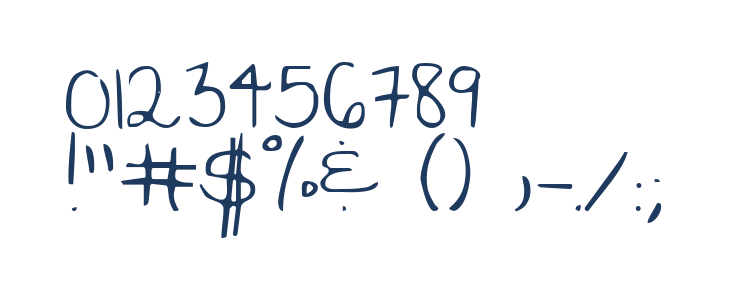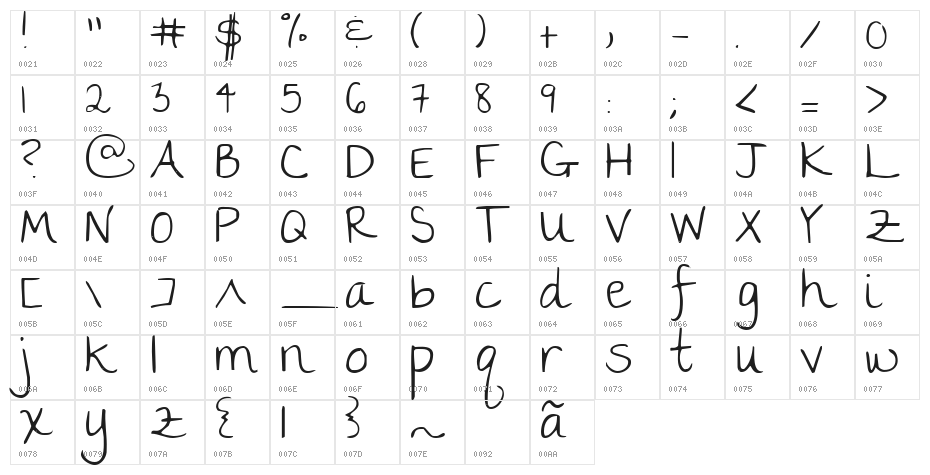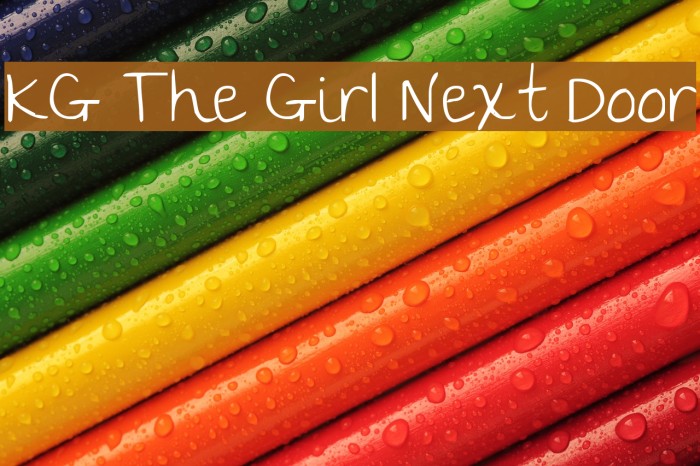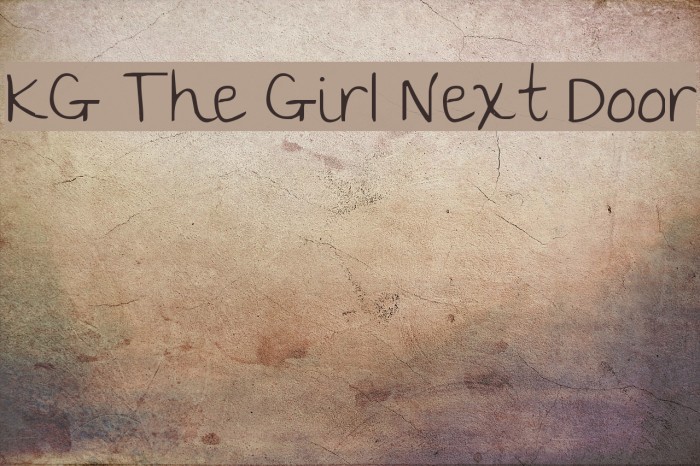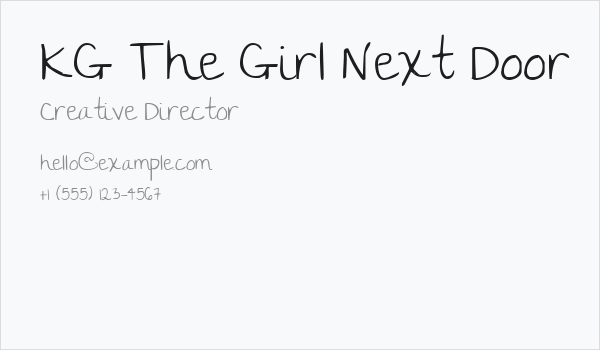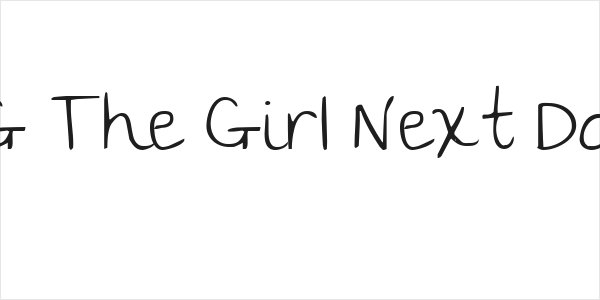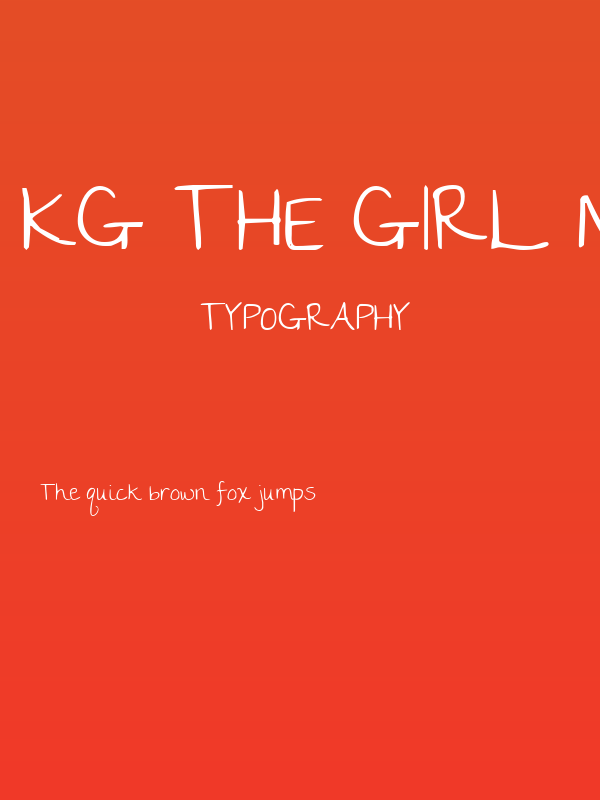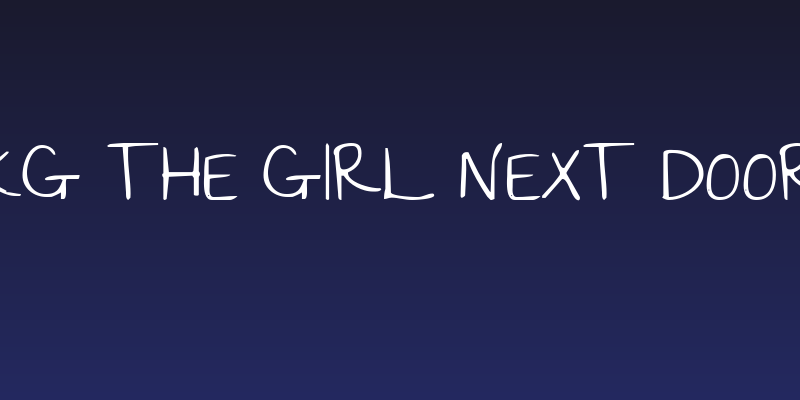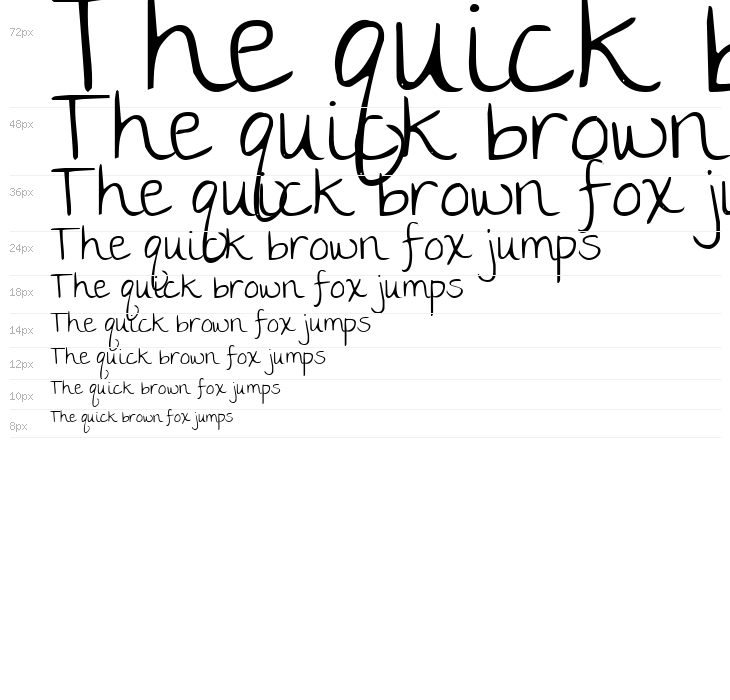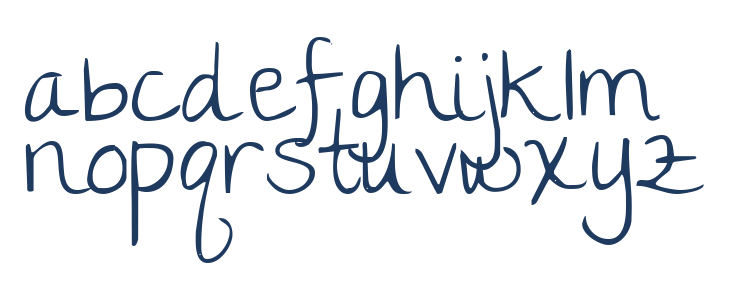
KG The Girl Next Door Font
KG The Girl Next Door Description
This font exhibits a playful and casual handwritten style, characterized by its smooth, flowing lines and slightly irregular shapes. The uppercase letters maintain a consistent height, while the lowercase letters display a charming variability, adding to the font's informal and friendly appearance. The numerals are rounded and easy to read, complementing the overall aesthetic. Special characters are thoughtfully designed to match the whimsical nature of the font. Its legibility and unique style make it suitable for a variety of creative projects.
| Proposed Projects | Ideal for greeting cards, children's books, personal blogs, and playful branding projects. |